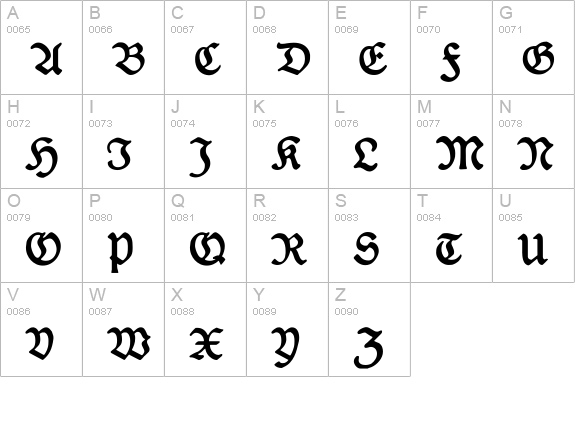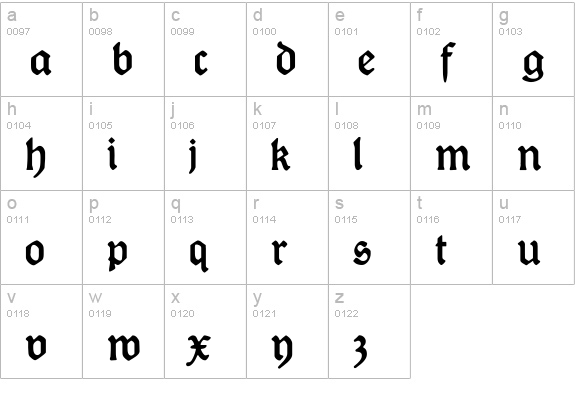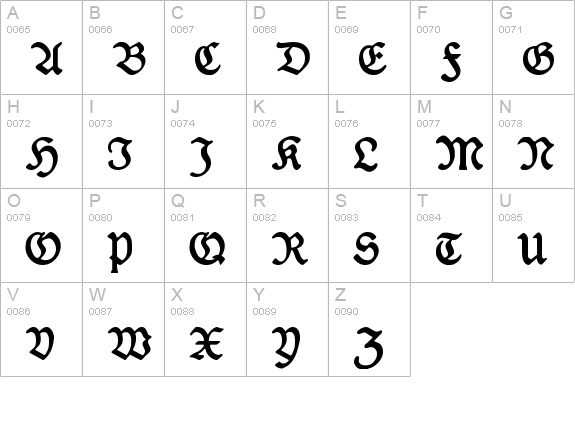
DeutscheDruckschrift font is a stunning typeface that exudes elegance and sophistication. With its strong and bold letterforms, this font captures the essence of German printing style, making it perfect for a wide range of design projects. The distinctive characteristics of DeutscheDruckschrift font make it stand out from the crowd. Its clean lines and precise curves create a sense of professionalism and authority, making it an ideal choice for corporate logos, branding materials, and editorial layouts. What sets DeutscheDruckschrift font apart is its versatility. Whether you're designing a vintage-inspired poster or a modern website, this font can adapt seamlessly to any style or theme. Its timeless appeal ensures that your designs will never go out of fashion. One of the best things about DeutscheDruckschrift font is that it is free. Yes, you read it right! This amazing font is freely available to download at FontsMarket.com. Now everyone can enjoy the beauty and functionality of this incredible typeface without any cost. So why wait? Go ahead and download DeutscheDruckschrift font today from FontsMarket.com and unlock a world of design possibilities. Whether you're a professional designer or a typography enthusiast, this font is sure to become a valuable addition to your collection. Experience the power of DeutscheDruckschrift font and elevate your designs to new heights.